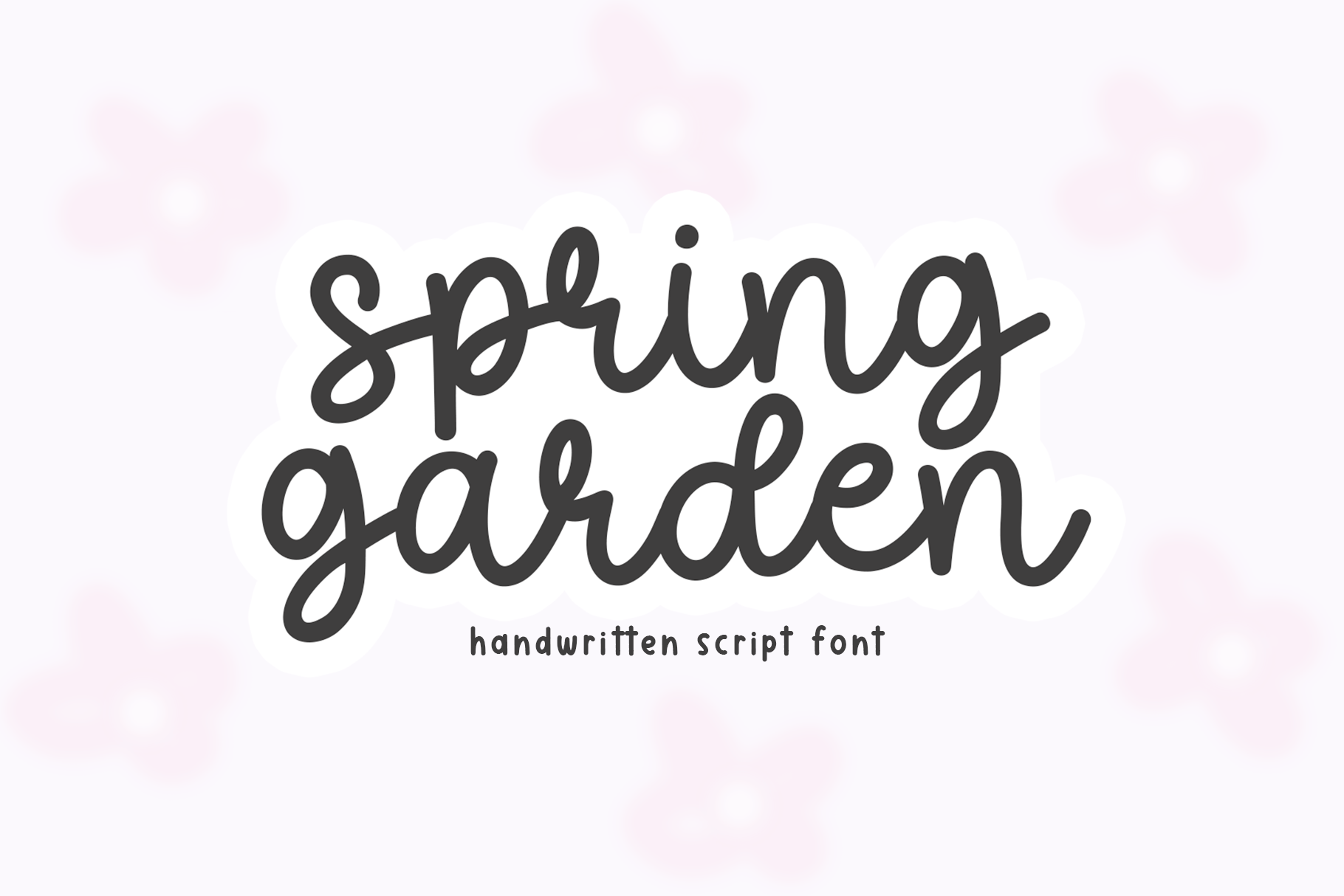
Spring Garden | Cute Script Font
Spring Garden is a handwritten script font.
This font is perfect for shirts, svg files, cricut projects, wedding decor, farmhouse designs, stickers, mugs and more!